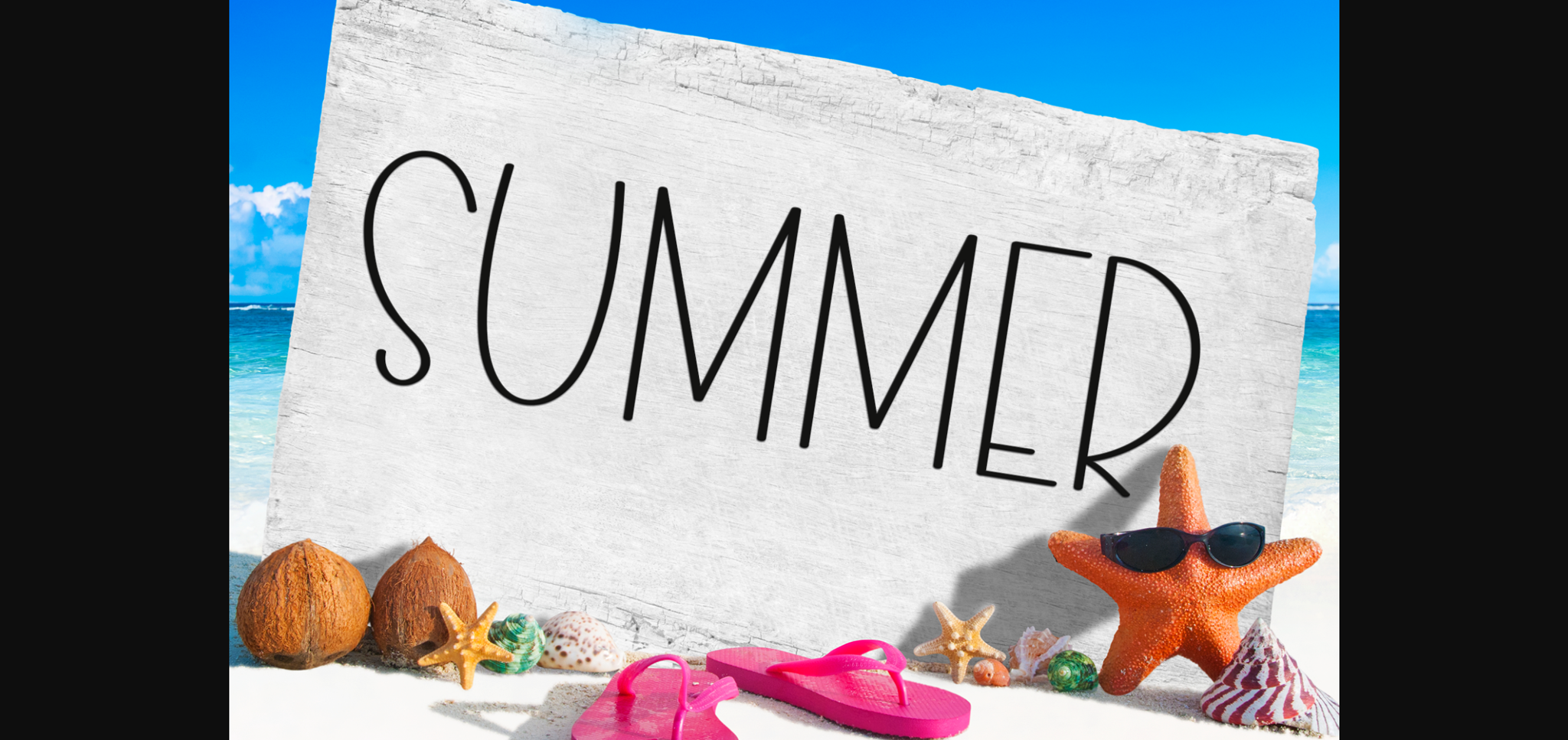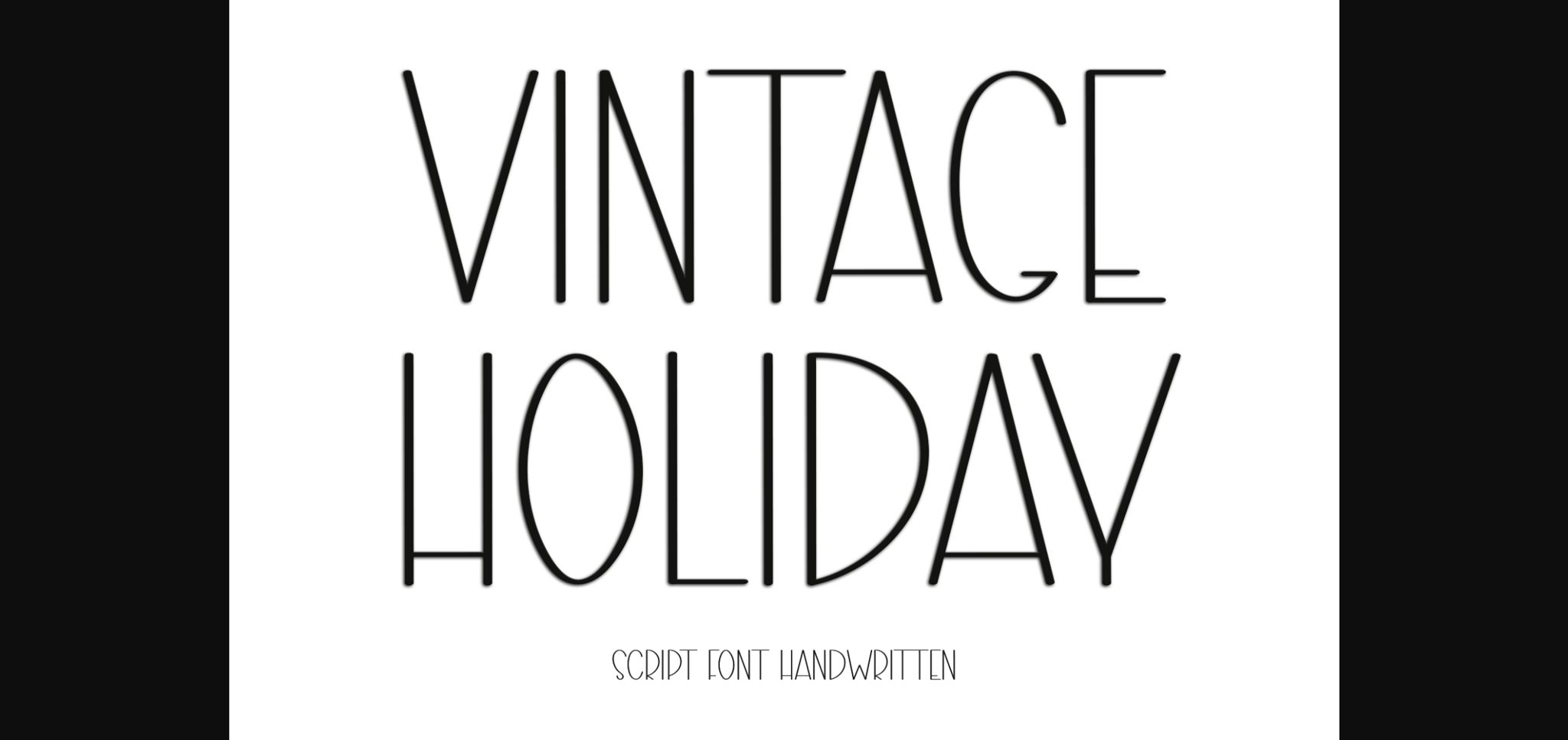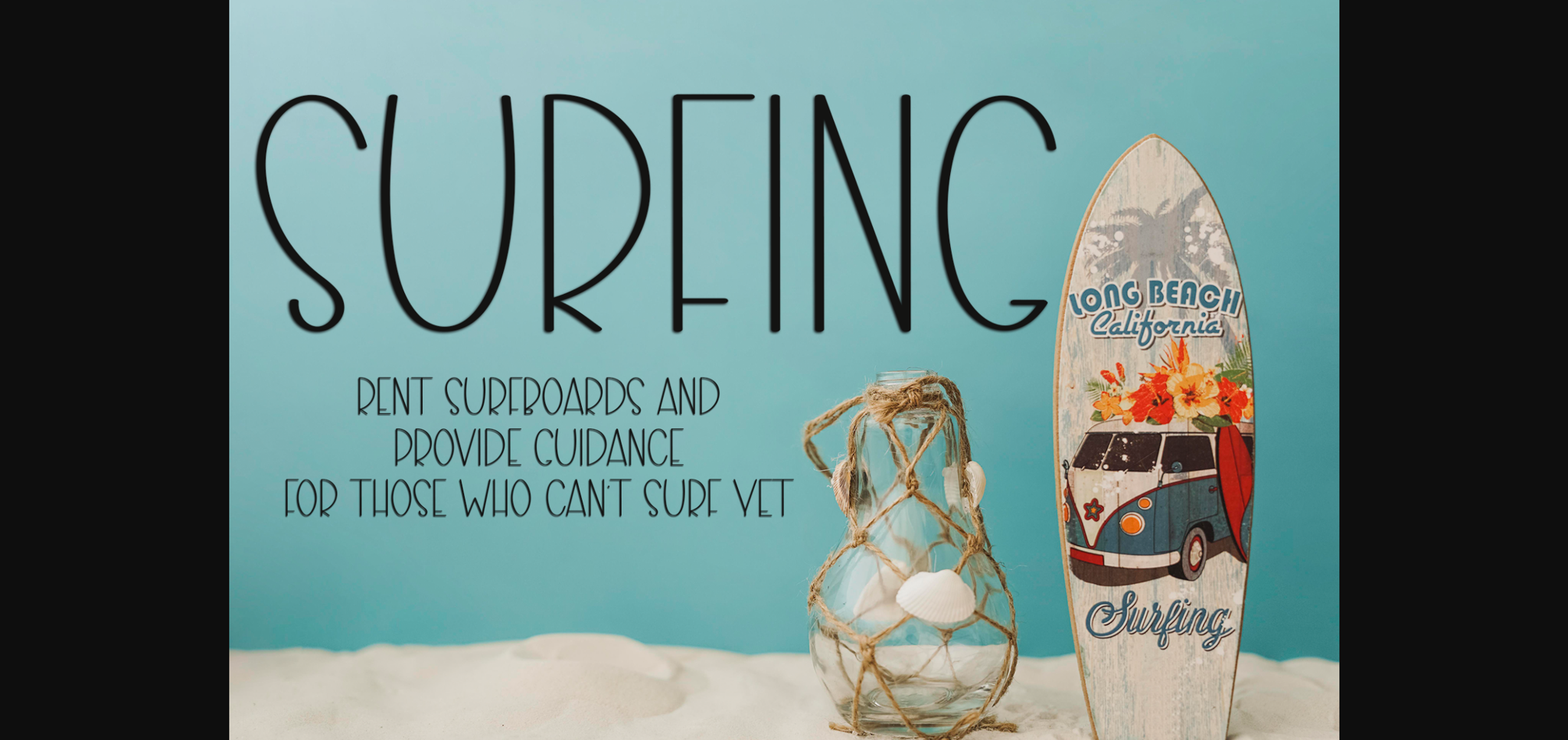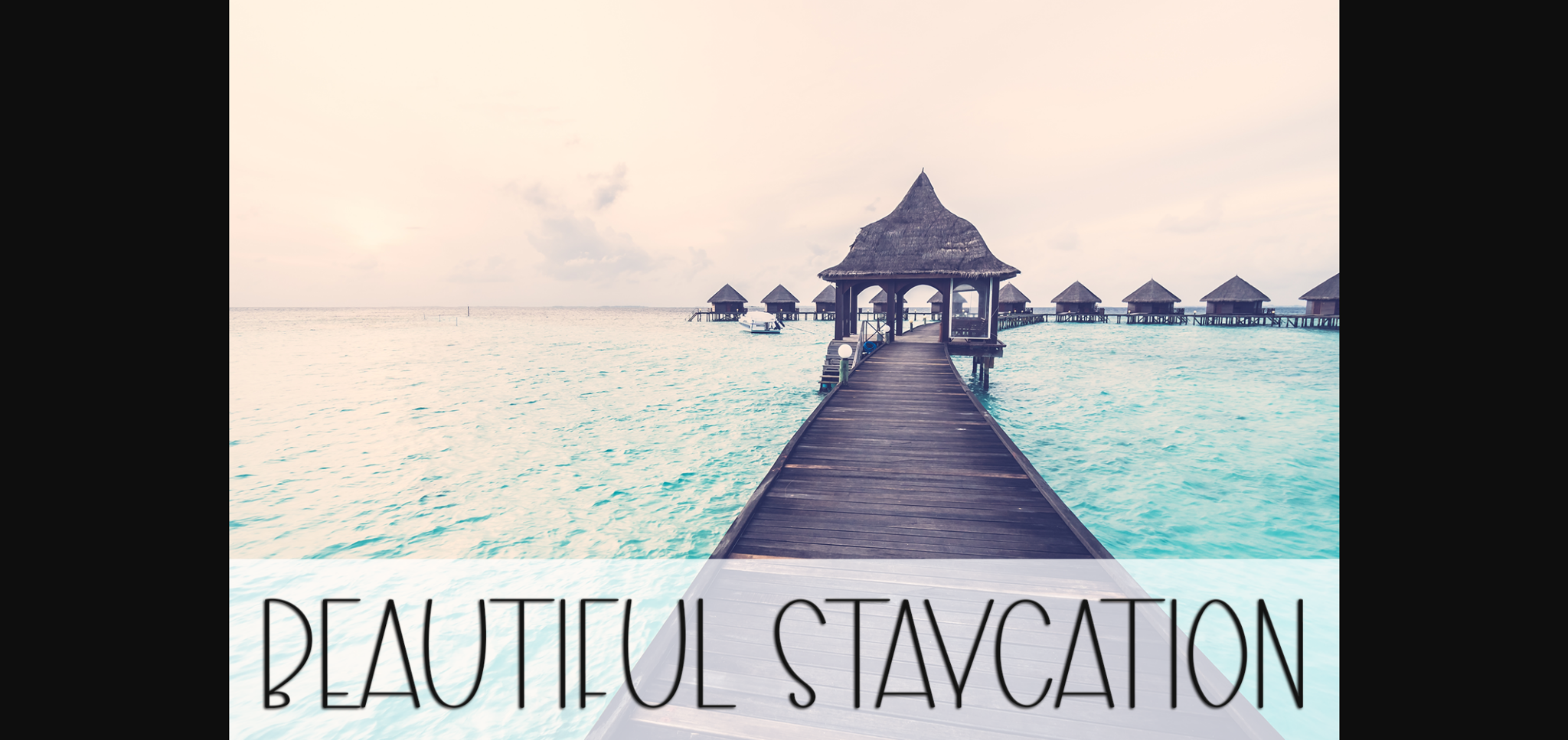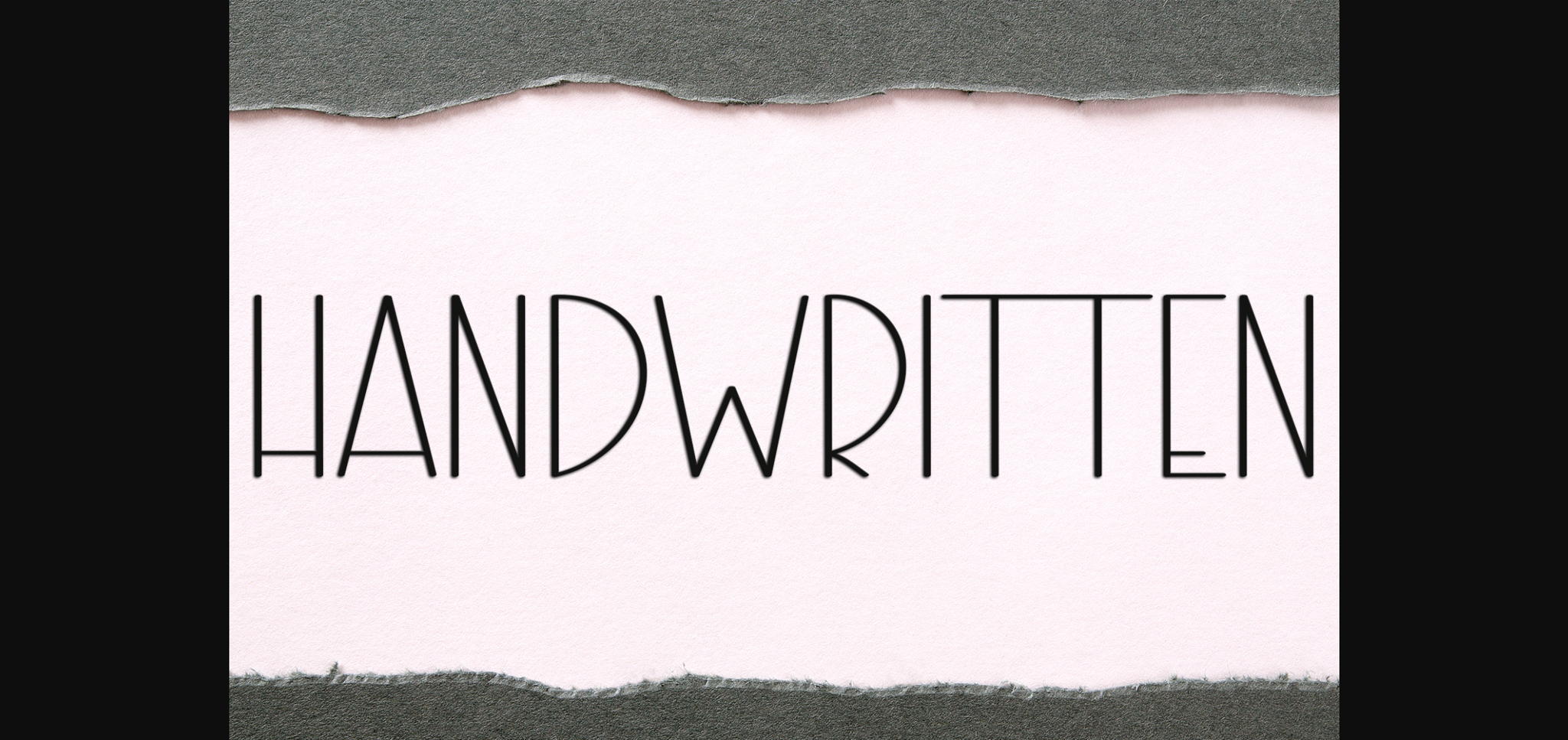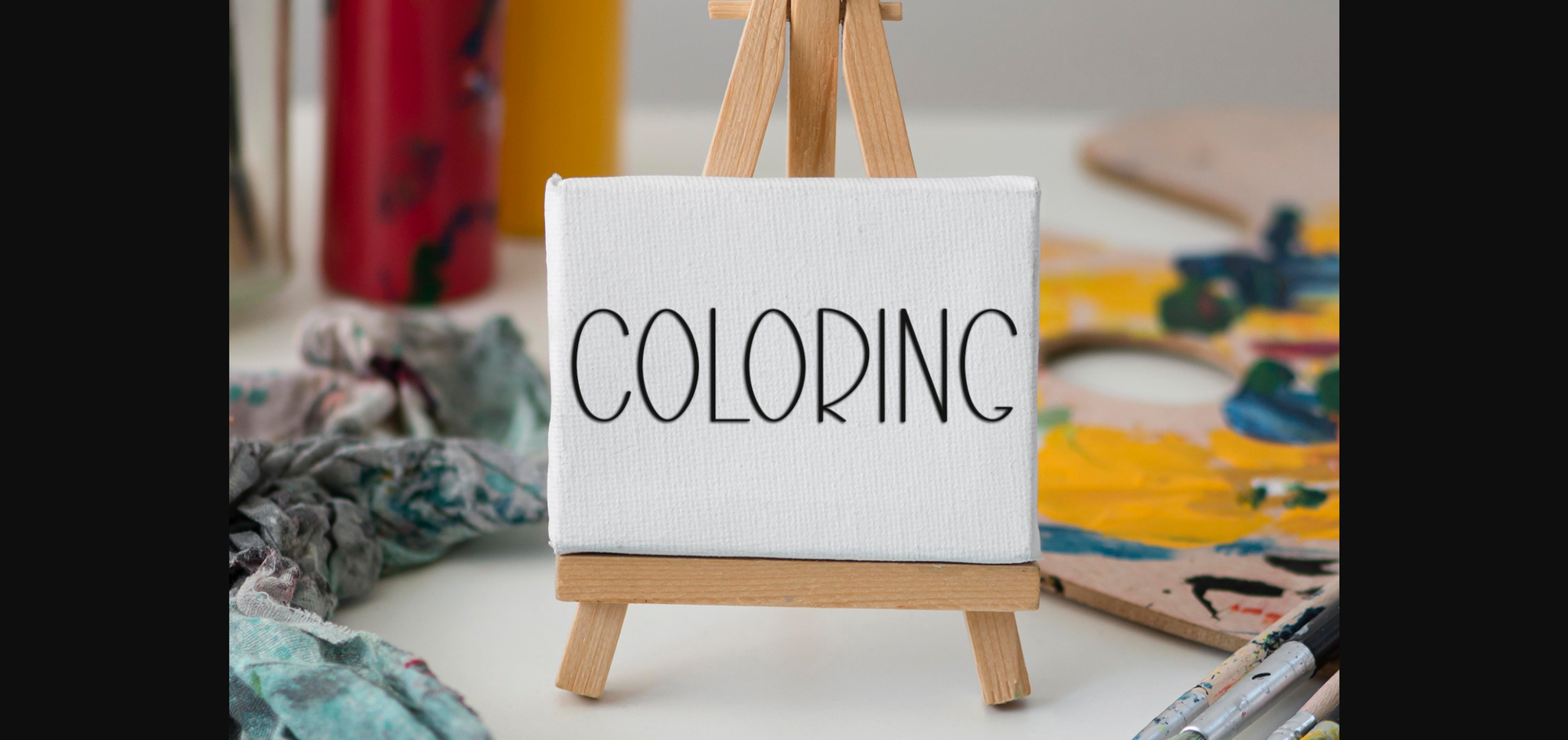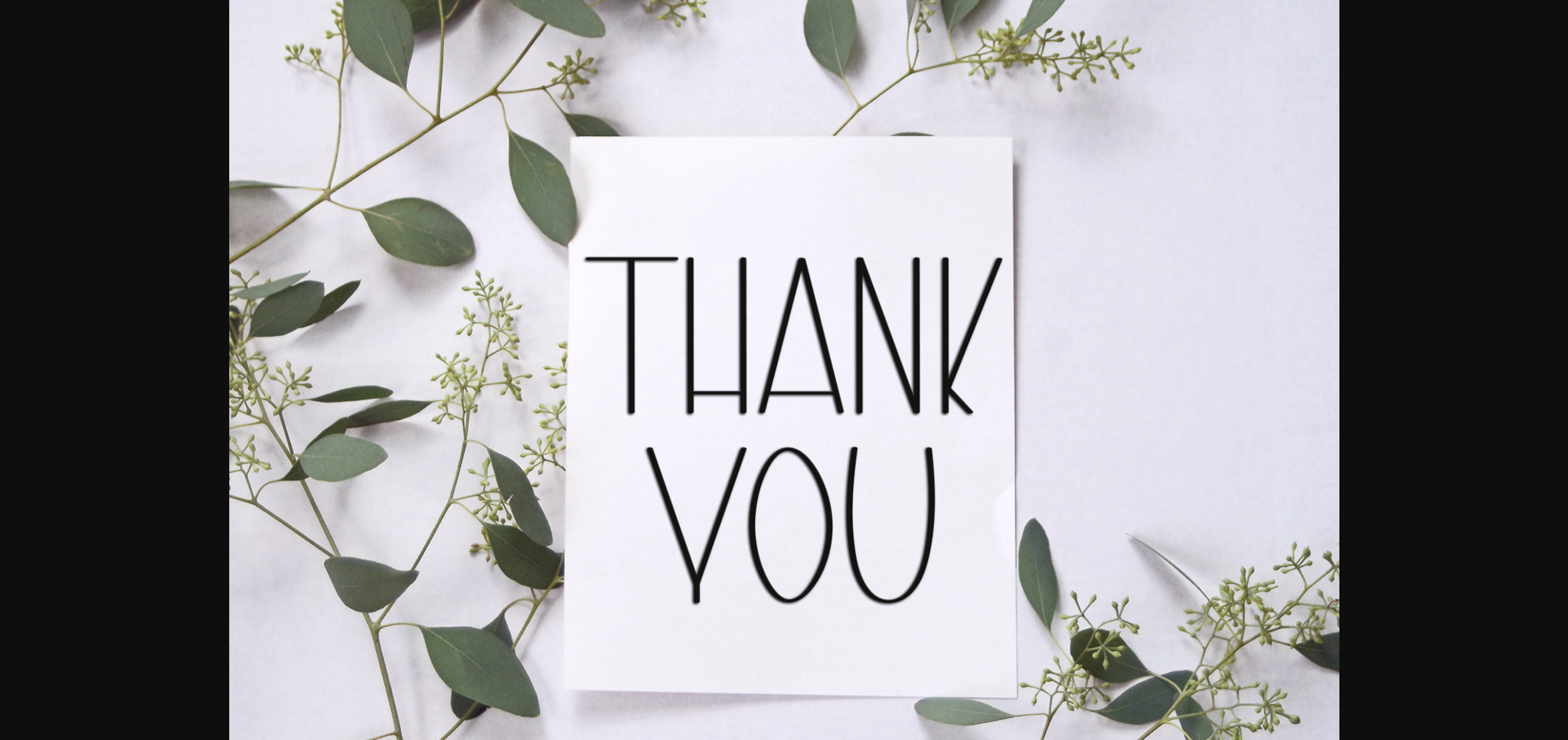
Vintage Holiday is a simple and casual sans-serif font with an undeniably clean feel. With its neat and beautiful arrangement of letters, this typeface will look outstanding in both formal and non-formal designs.